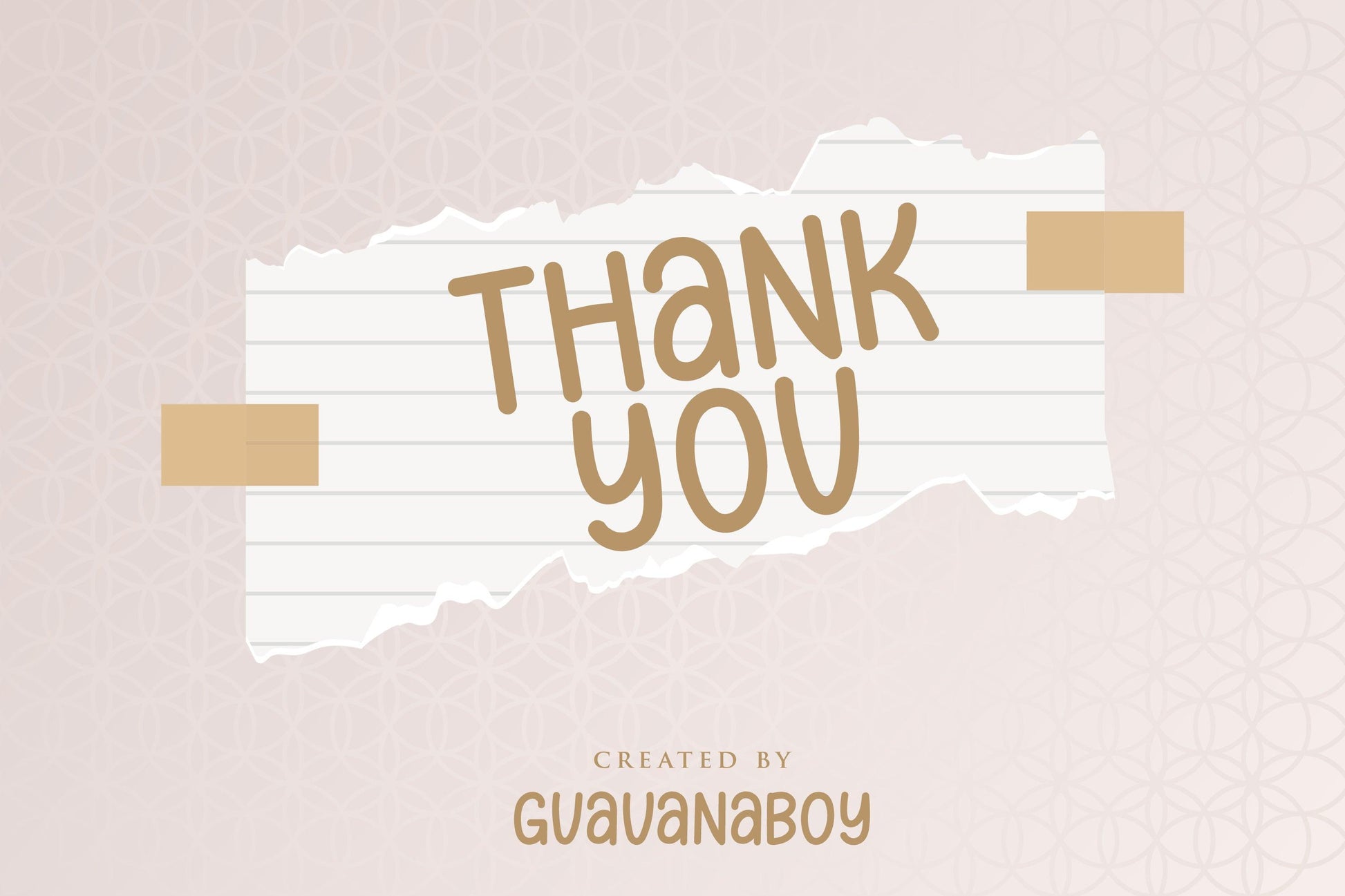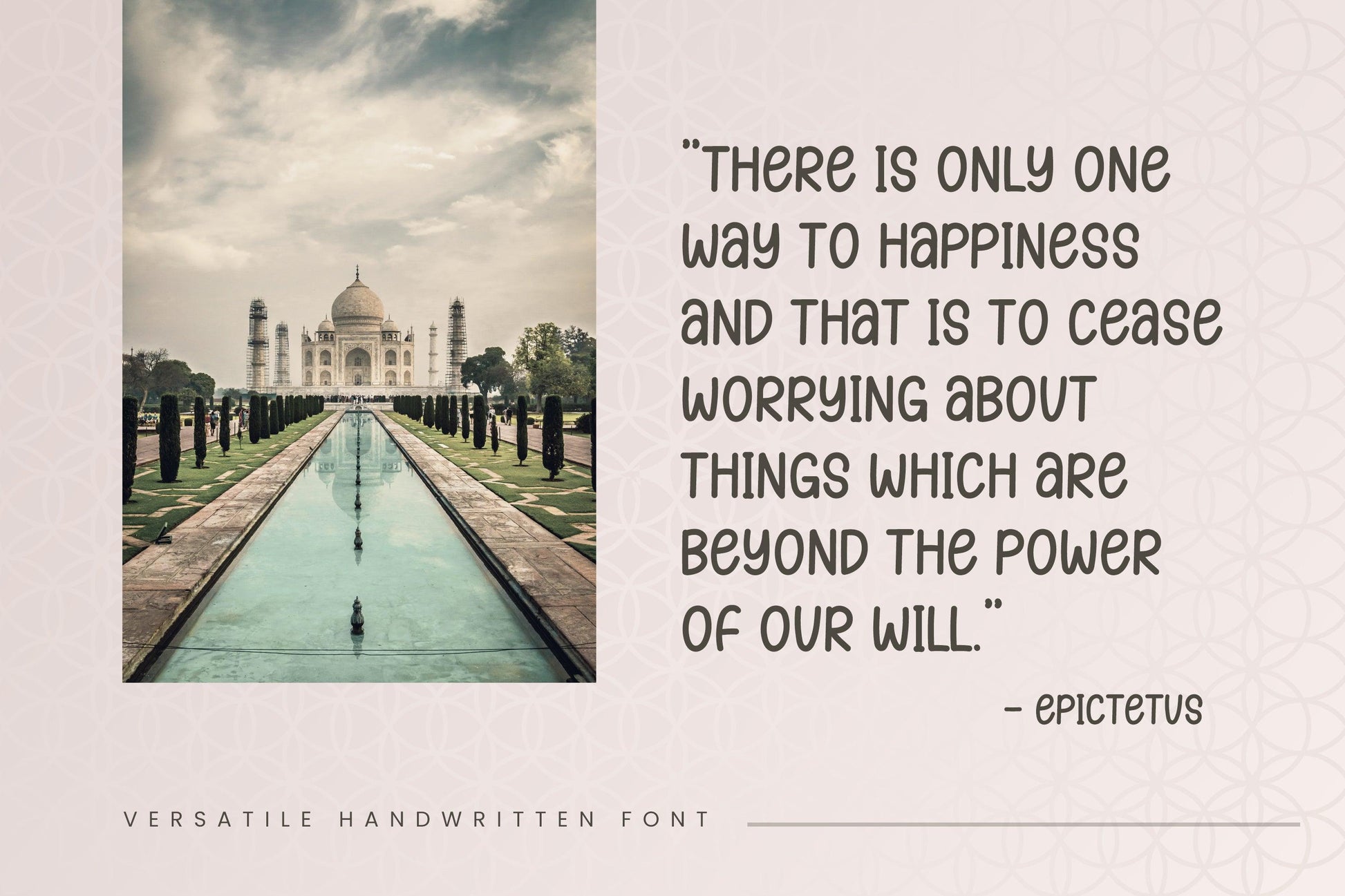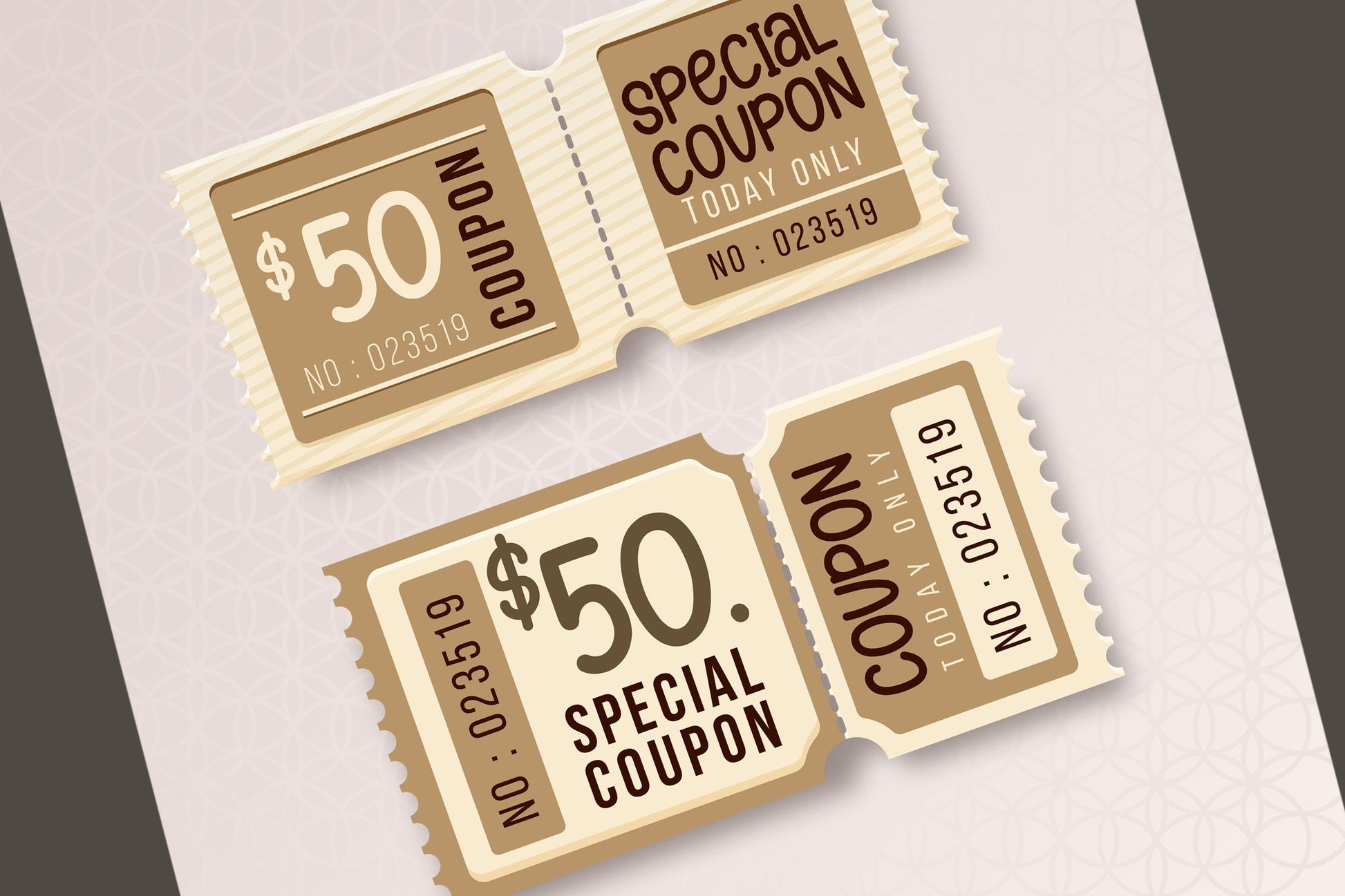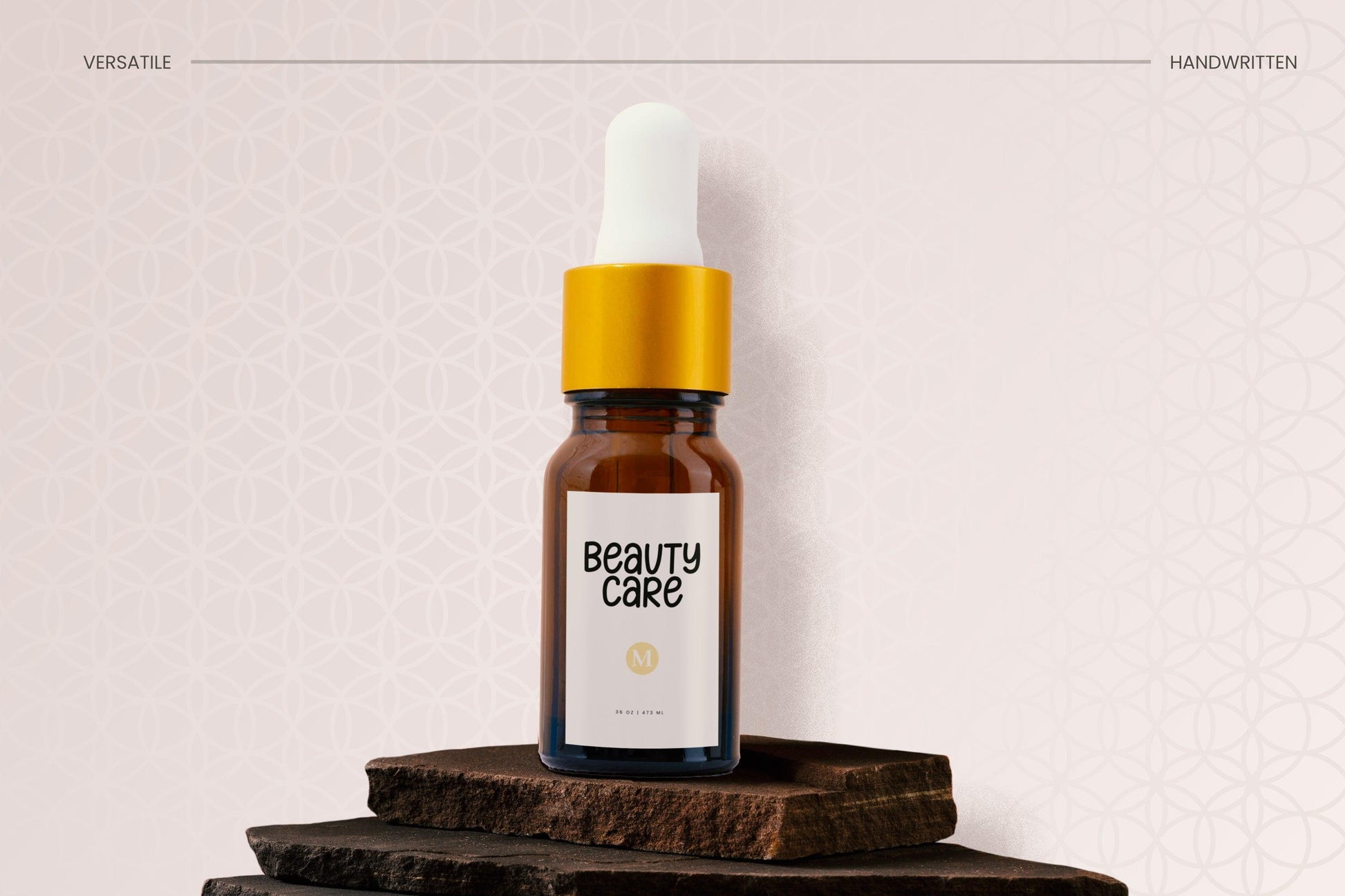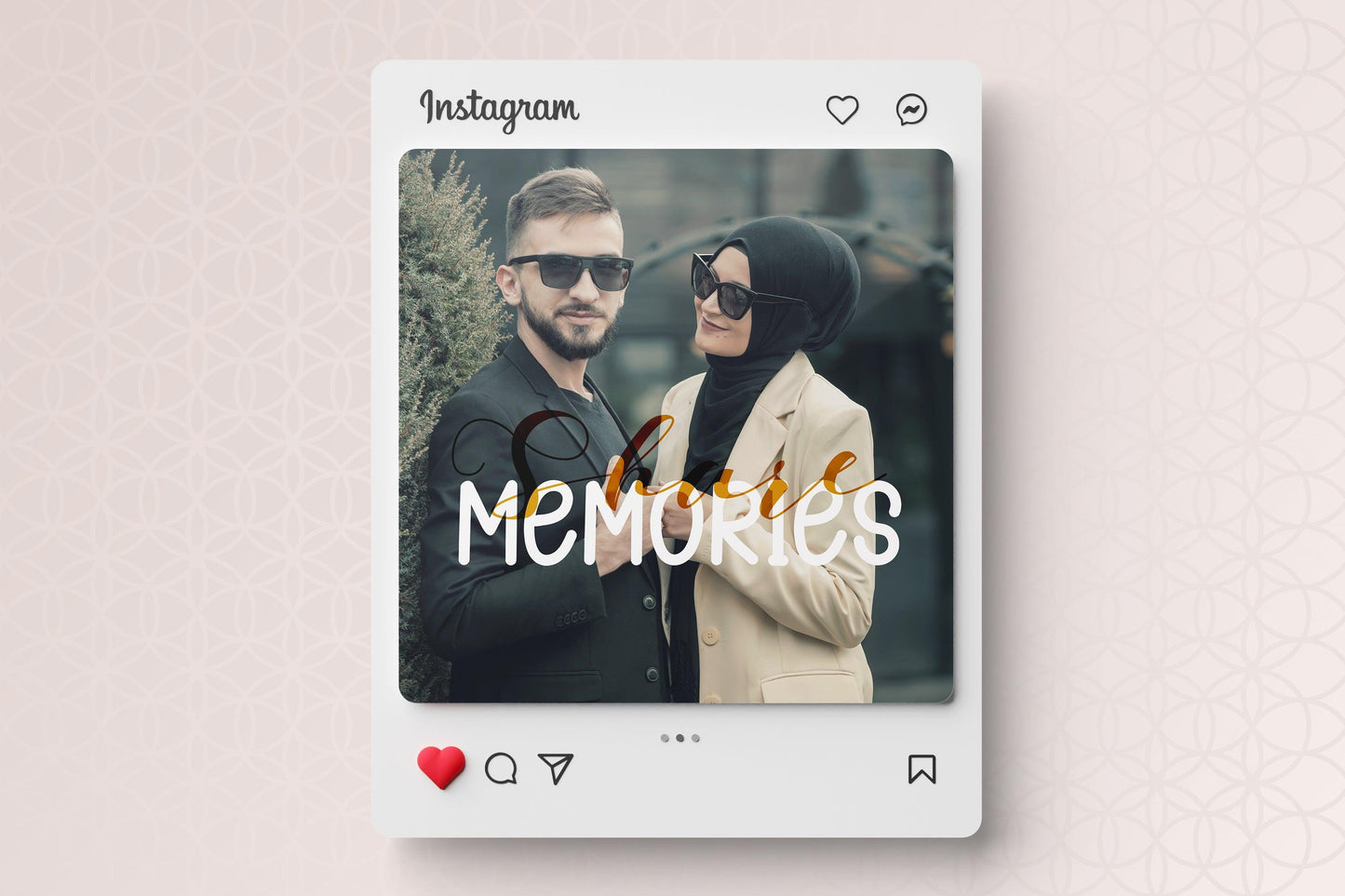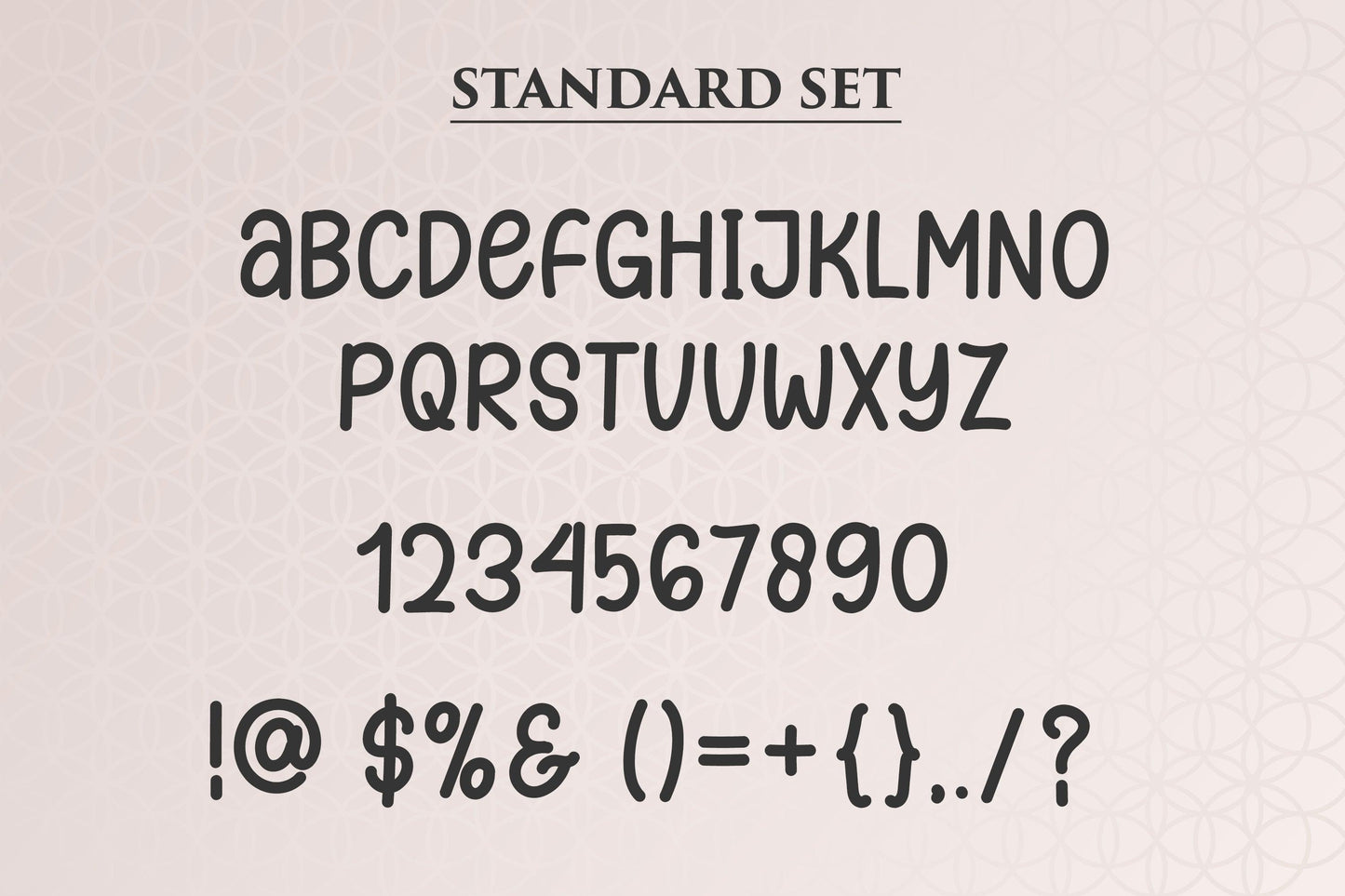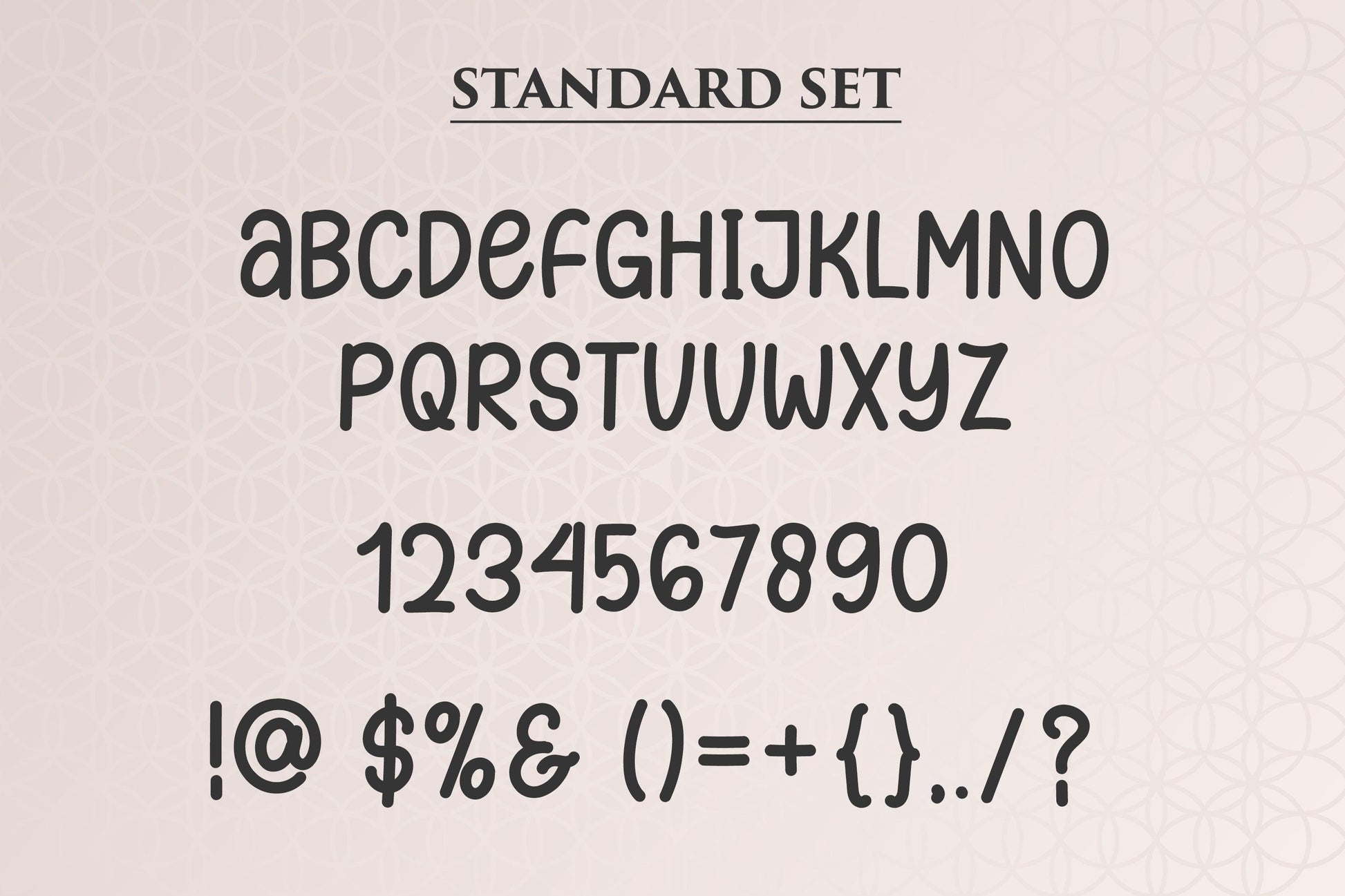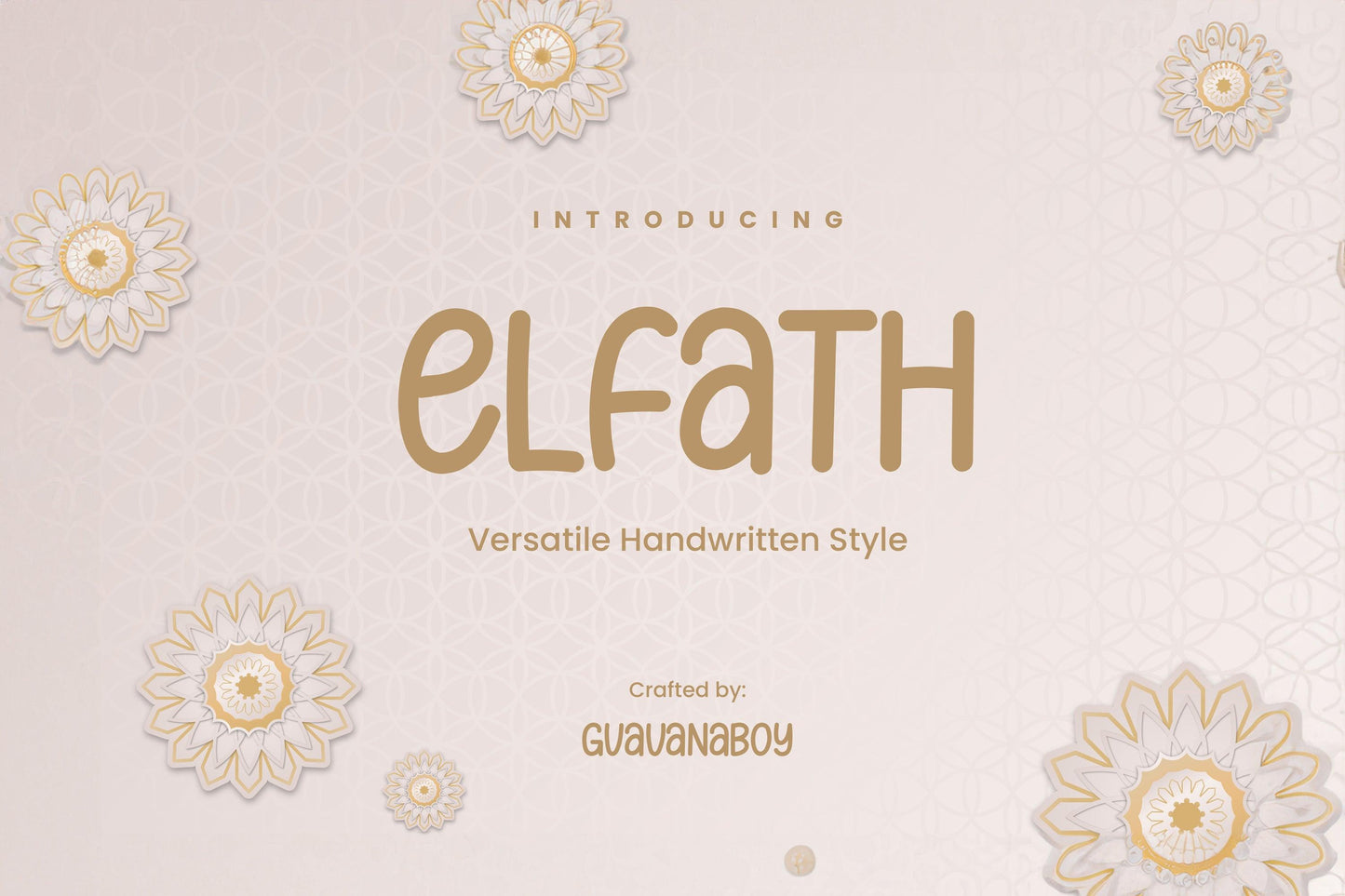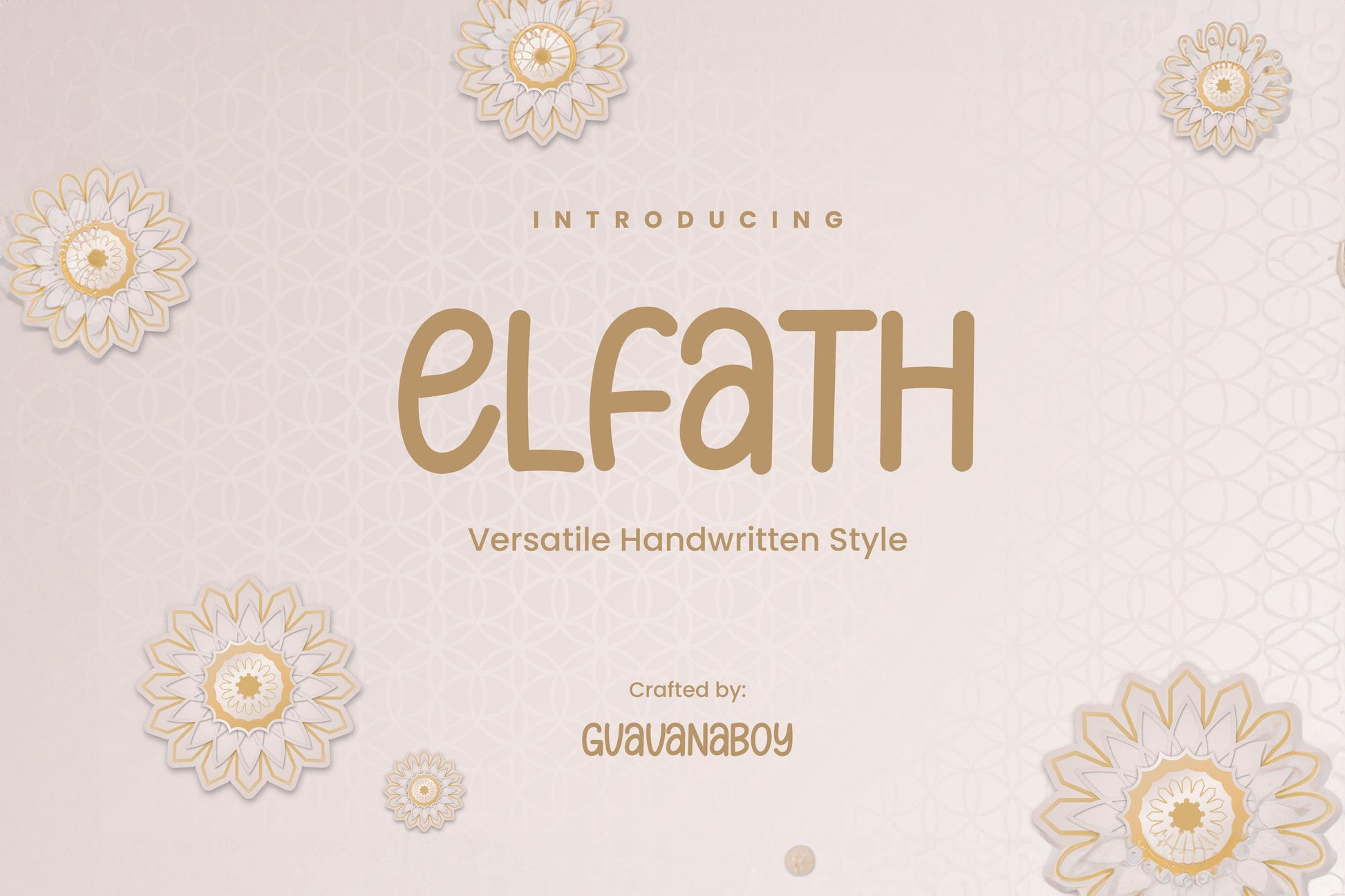
Elfath - Versatile Handwritten Font
Meet Elfath, a beautifully crafted Versatile Handwritten Font that combines elegance with practicality. With its smooth, natural strokes and refined style, Elfath is perfect for a wide range of creative projects, including branding, wedding invitations, social media posts, product packaging, and more. Whether you need a casual, friendly vibe or a sophisticated handwritten aesthetic, Elfath adapts seamlessly to any design, making it an essential tool for creatives and professionals alike.
- Complete Character Set: Includes uppercase, lowercase, numbers, punctuation, and multilingual support.